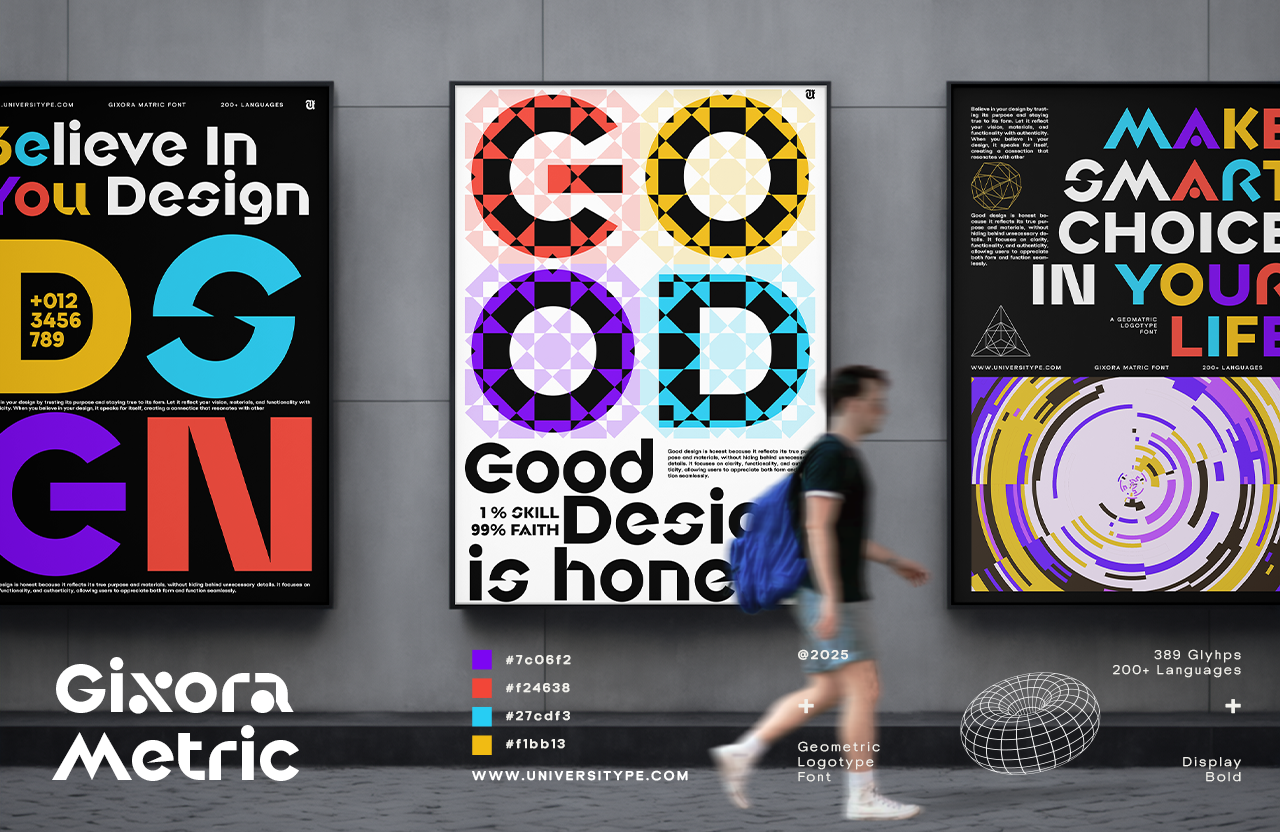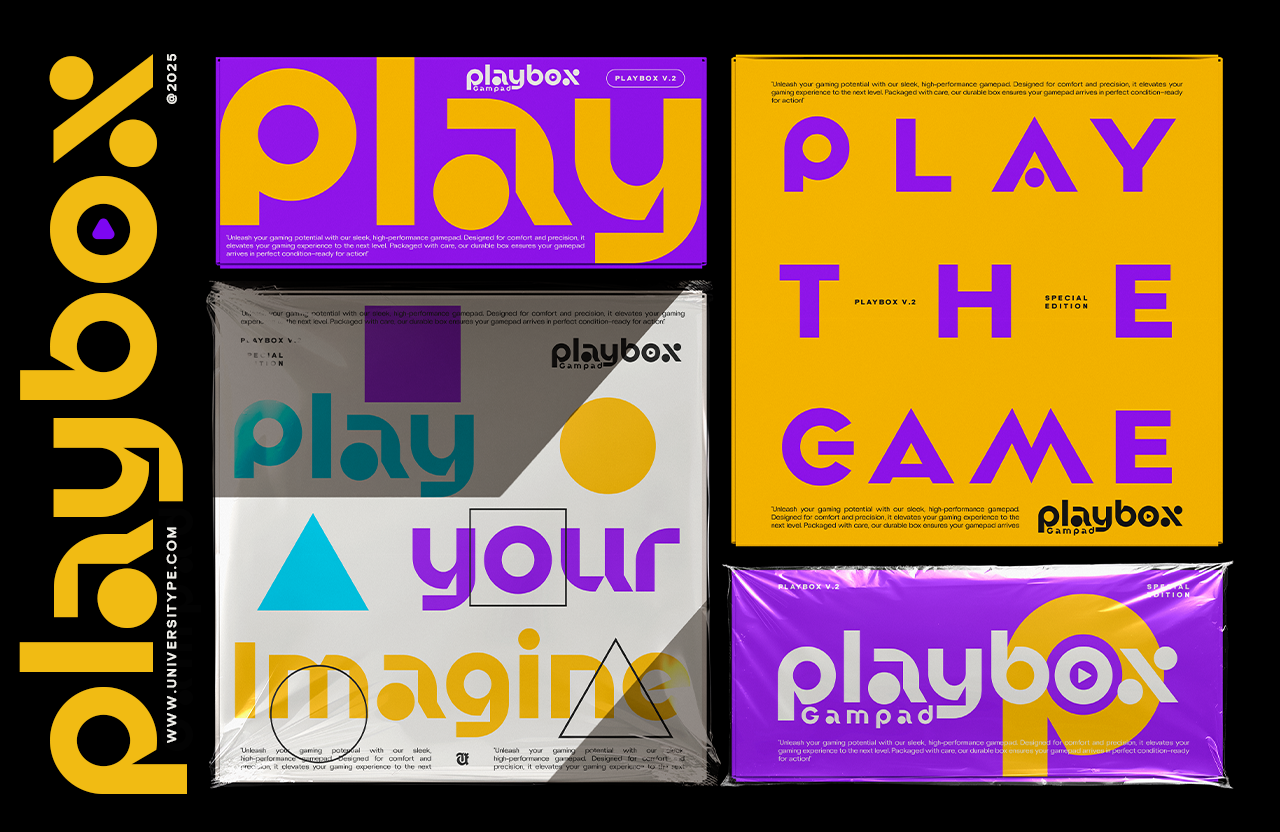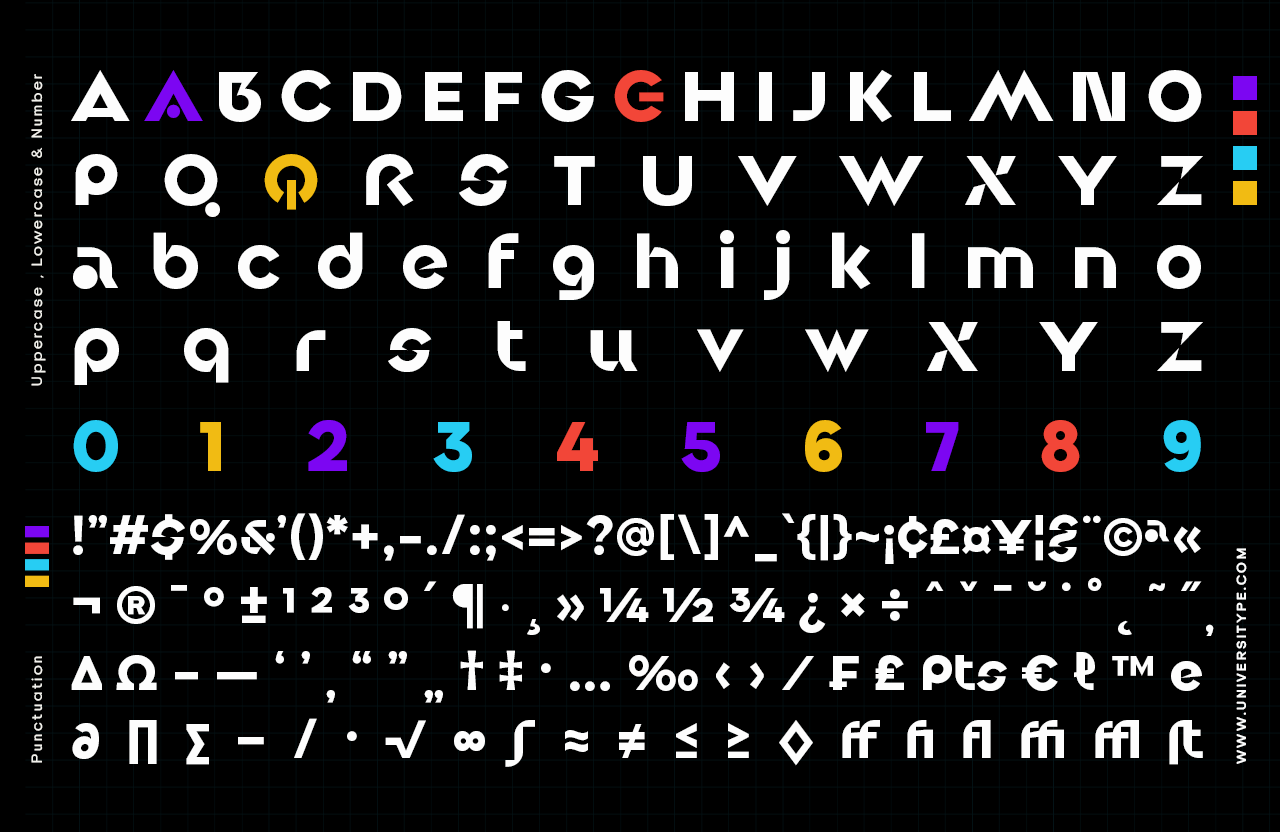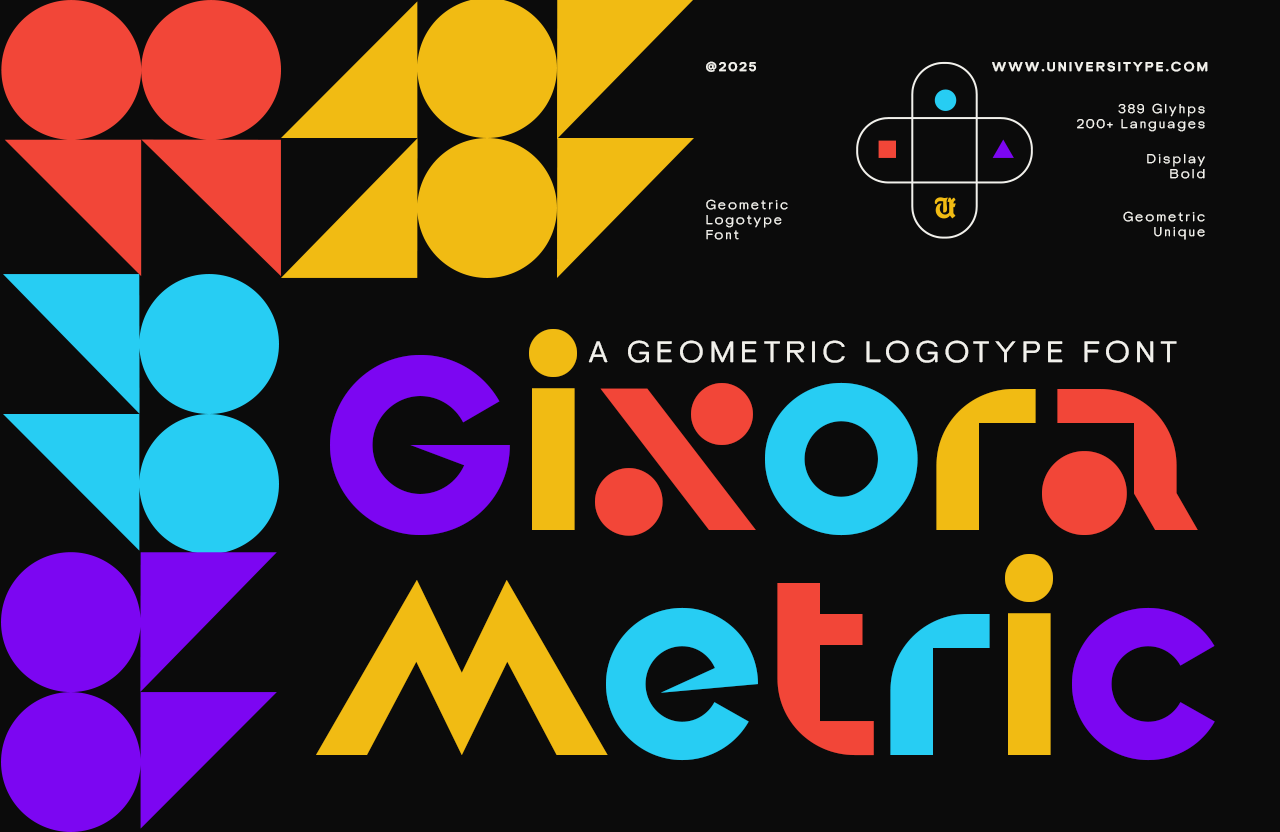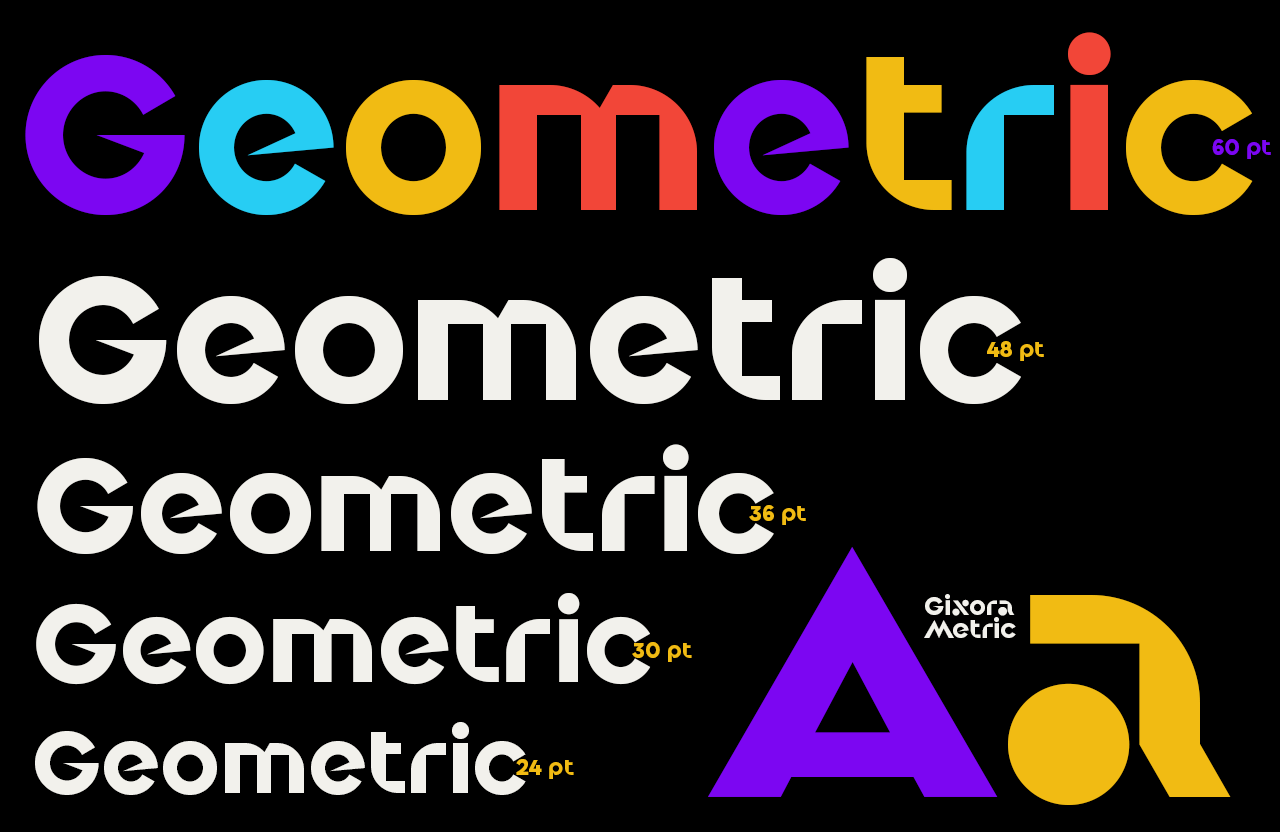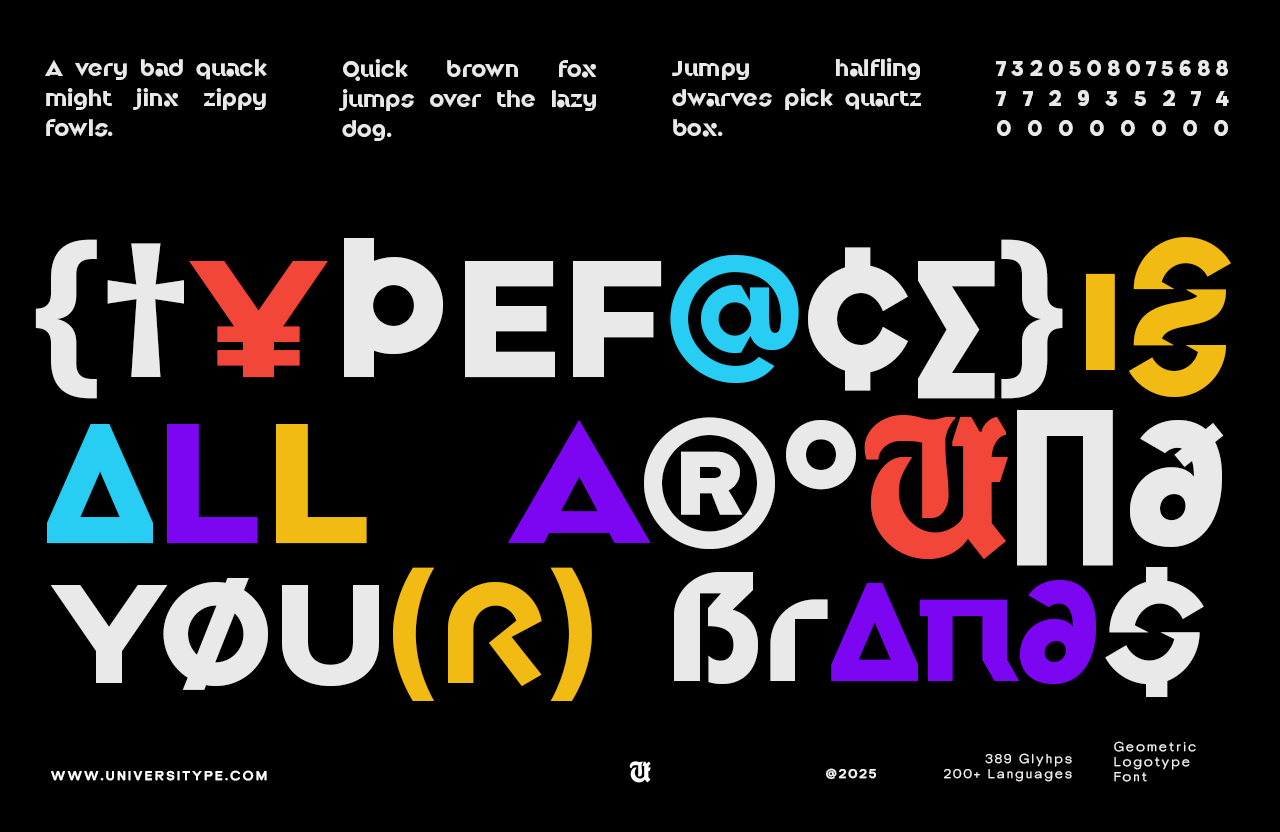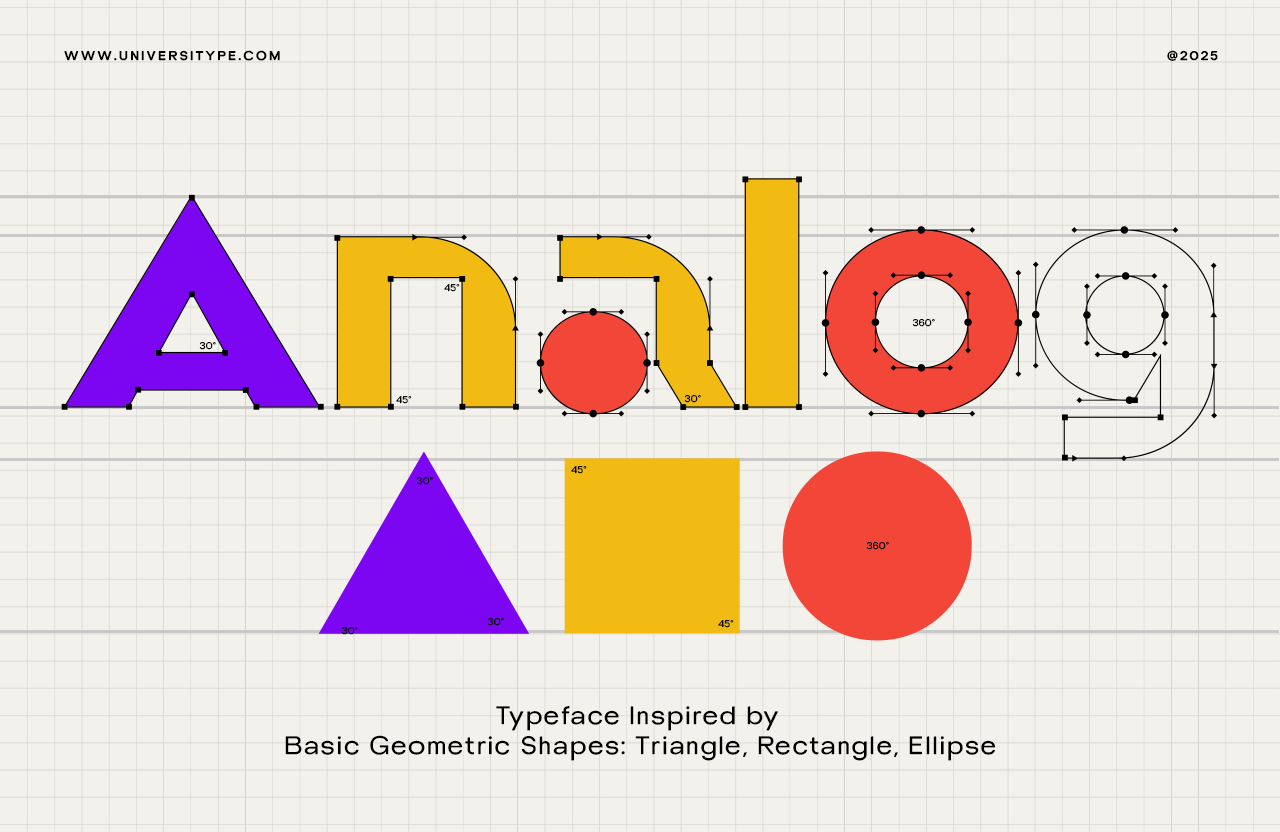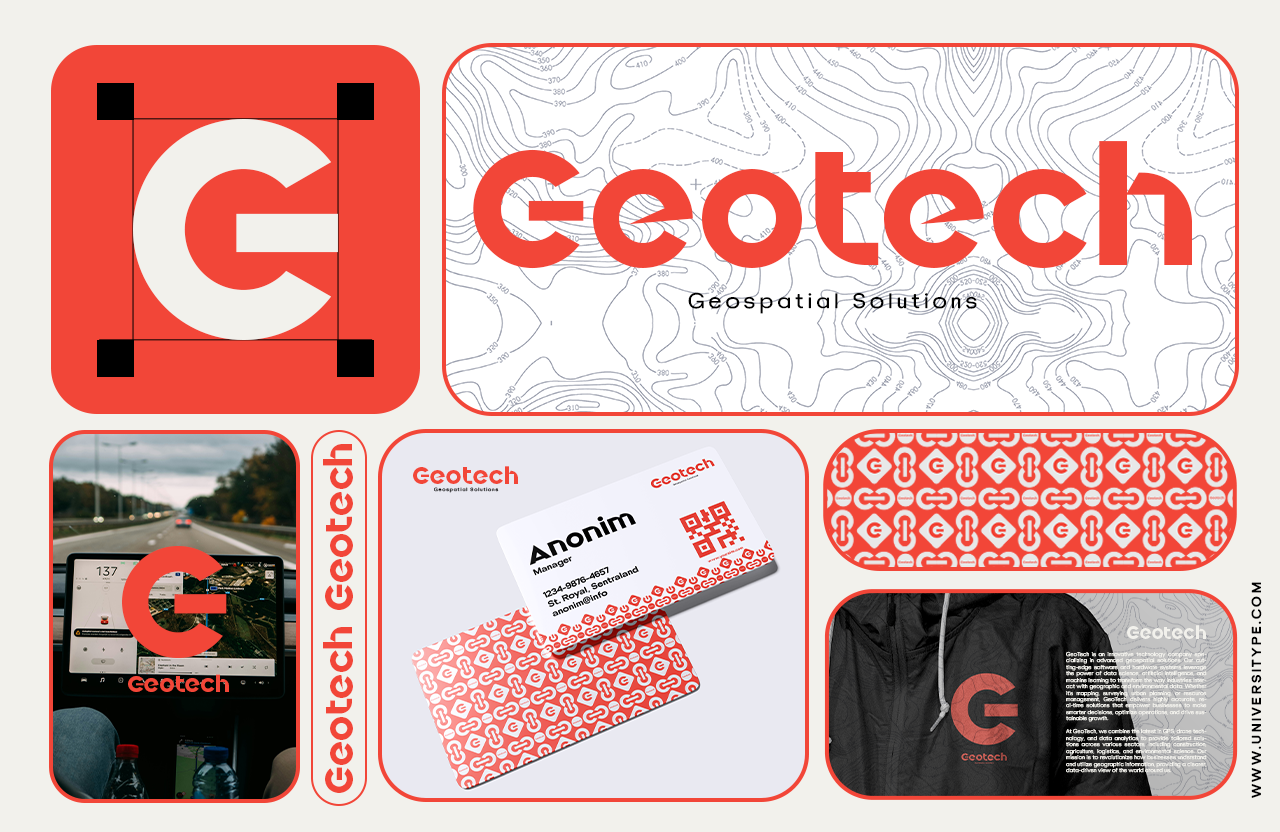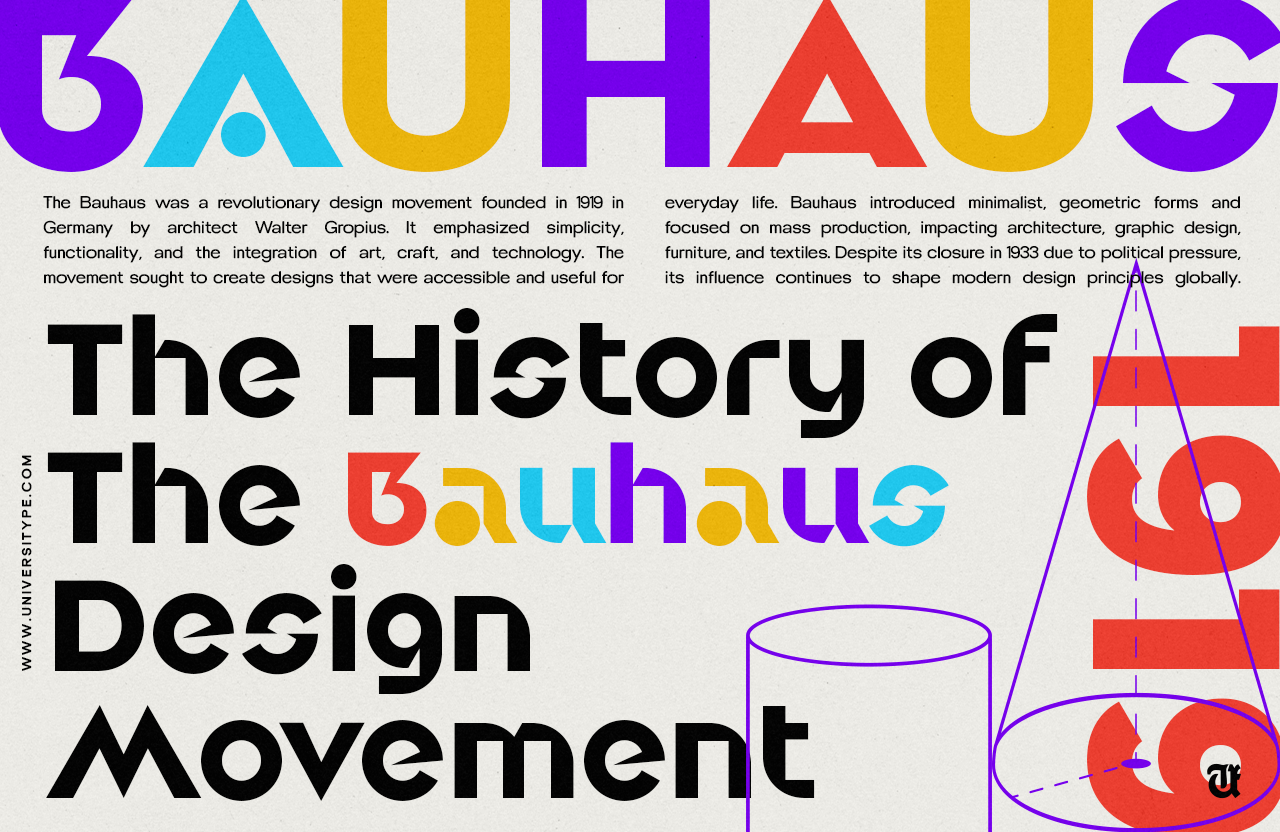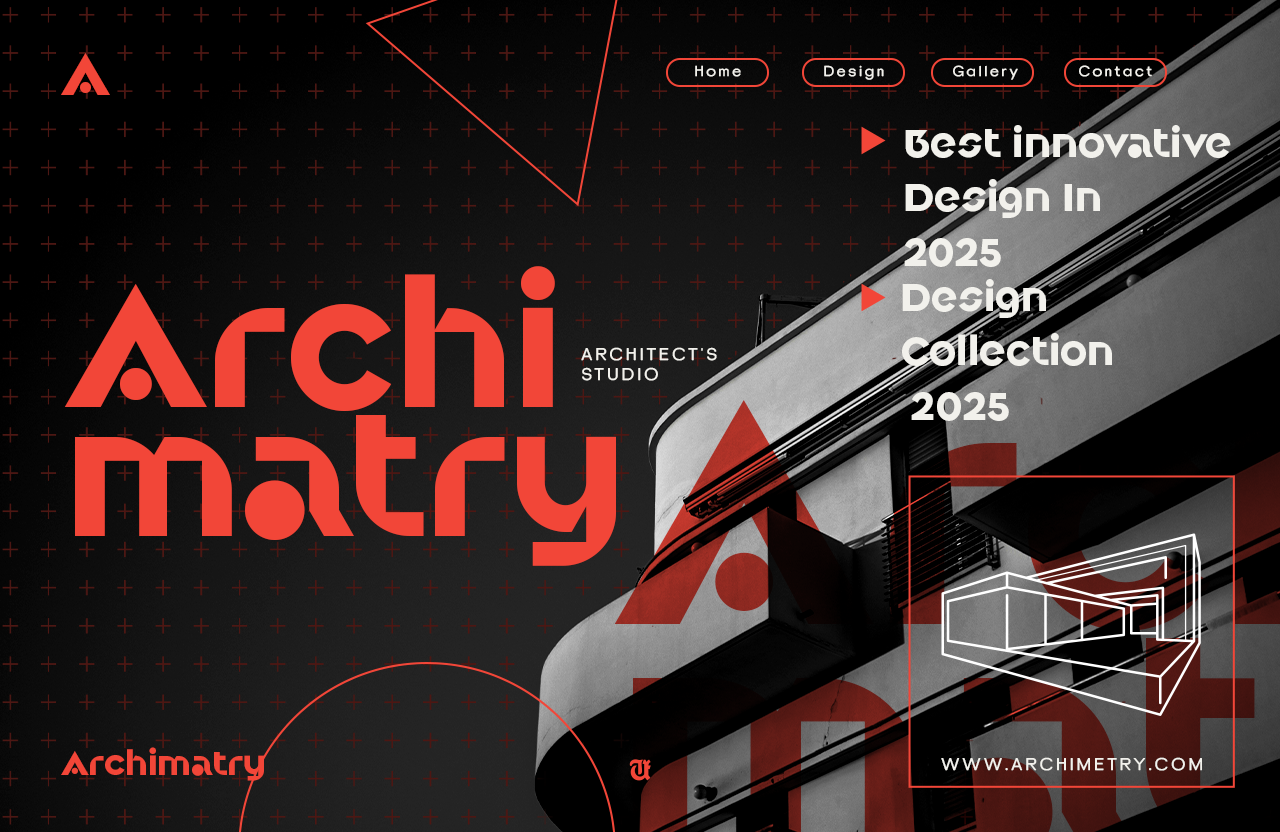
UT Gixora Metric - A Modern Geometric Font
UT Gixora Metric : The Ultimate Geometric Logotype Font
Introducing Gixora Metric, a revolutionary geometric logotype font that brings a fresh and modern twist to your design projects. Crafted with precision and creativity, UT Gixora Metric is perfect for brands looking to make a bold statement and stand out in a crowded market.
Key Features:
- Bold and Impactful: With its thick strokes and bold weight, UT Gixora Metric ensures your text captures attention and leaves a lasting impression.
- Geometric Elegance: The font’s geometric design, constructed from simple shapes like circles, triangles, and rectangles, offers a unique and contemporary aesthetic.
- Multilingual Support: With support for over 200 languages, UT Gixora Metric is perfect for global branding and communication.
- Comprehensive Glyph Set: Boasting 389 glyphs, UT Gixora Metric provides a wide range of characters, symbols, and accents to meet all your design needs.
- Versatile Applications: Ideal for logo design, headings, titles, and other prominent text elements, UT Gixora Metric is a versatile font that adapts to various design contexts.
Unique Style: UT Gixora Metric’s geometric and unique style helps your brand stand out and make a memorable impression.
Why Choose UT Gixora Metric?
- Enhance Your Brand Identity: UT Gixora Metric’s distinctive style helps you create a strong and recognizable brand identity.
- Attract Attention: Its bold and colorful design ensures your text stands out and captures the attention of your audience.
- Expand Your Reach: With multilingual support, UT Gixora Metric helps you reach a broader audience and communicate effectively across different cultures.
- Save Time and Effort: UT Gixora Metric’s comprehensive glyph set and versatile applications save you time and effort in finding the perfect font for your project.
Inspiration Behind the Design:
UT Gixora Metric embodies a geometric logotype style with a bold and playful approach, drawing inspiration from the modernist and Bauhaus typography movements. These influential design schools emphasized the use of basic shapes like circles, triangles, and rectangles to define letterforms, creating a visually striking and structurally sound typeface. The font captures the essence of these movements, combining geometric precision with a sense of whimsy and creativity.